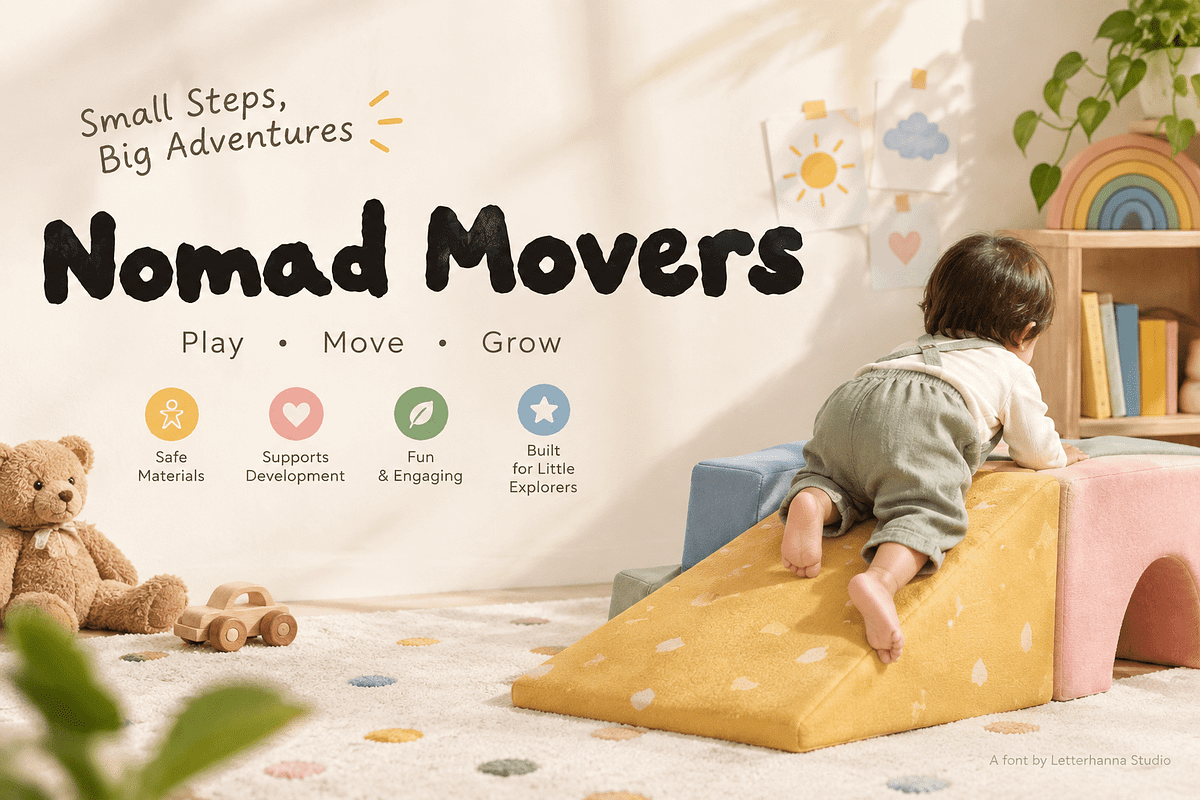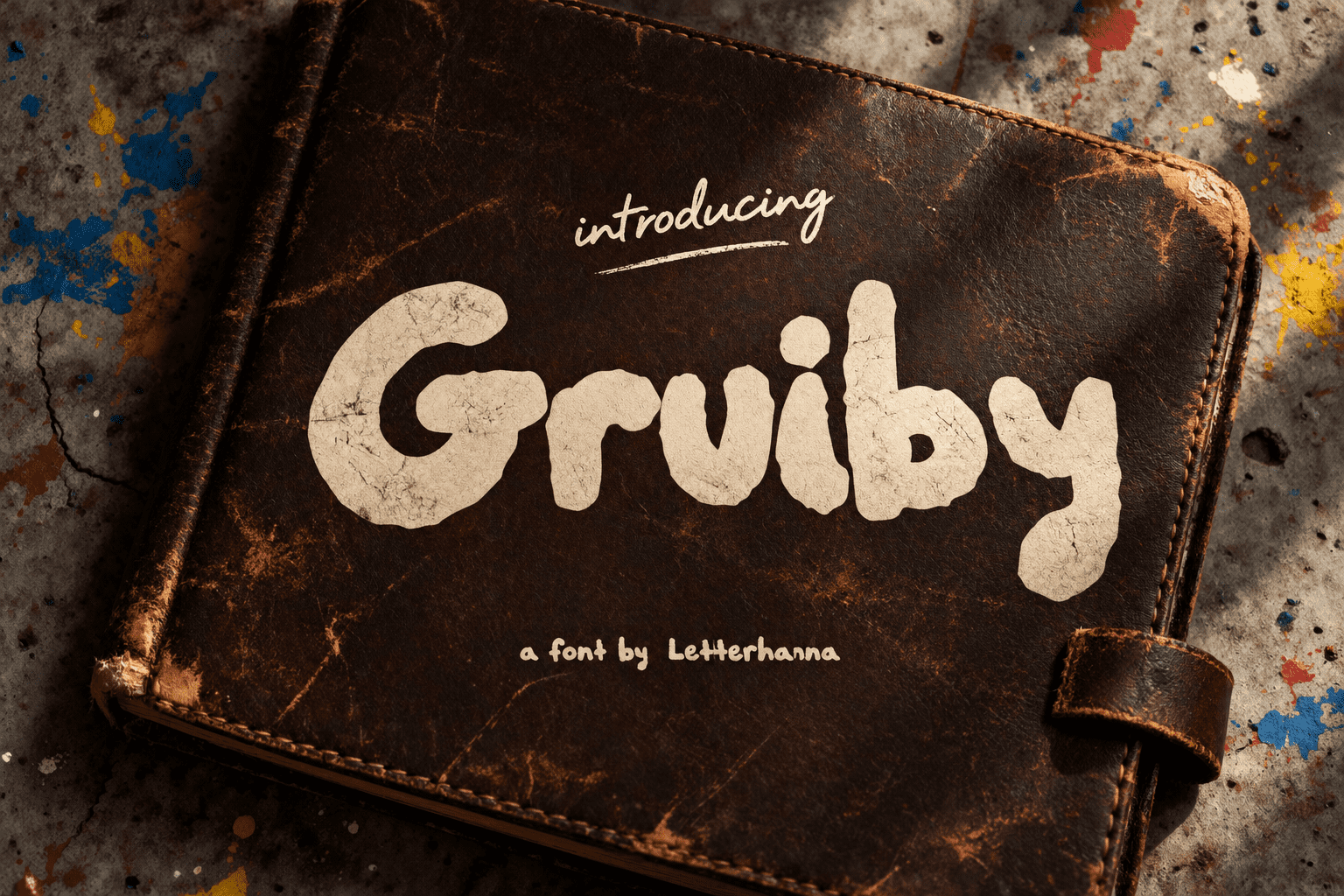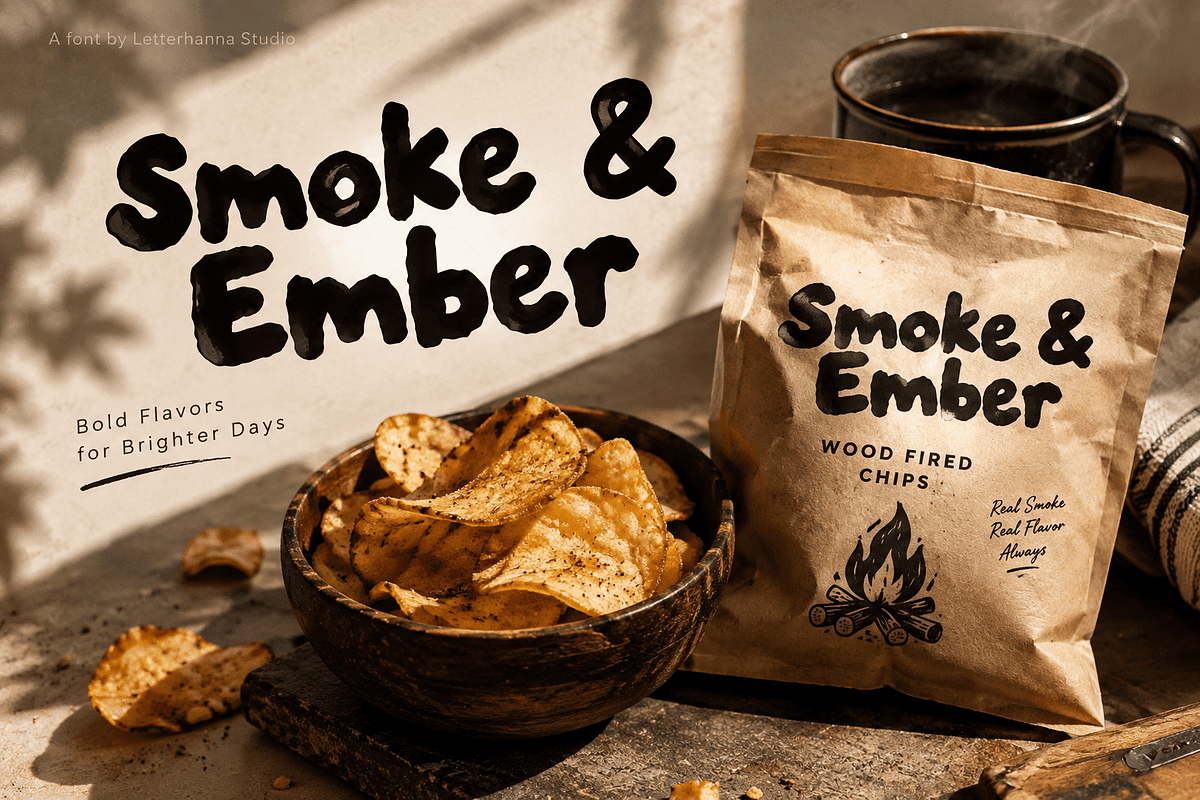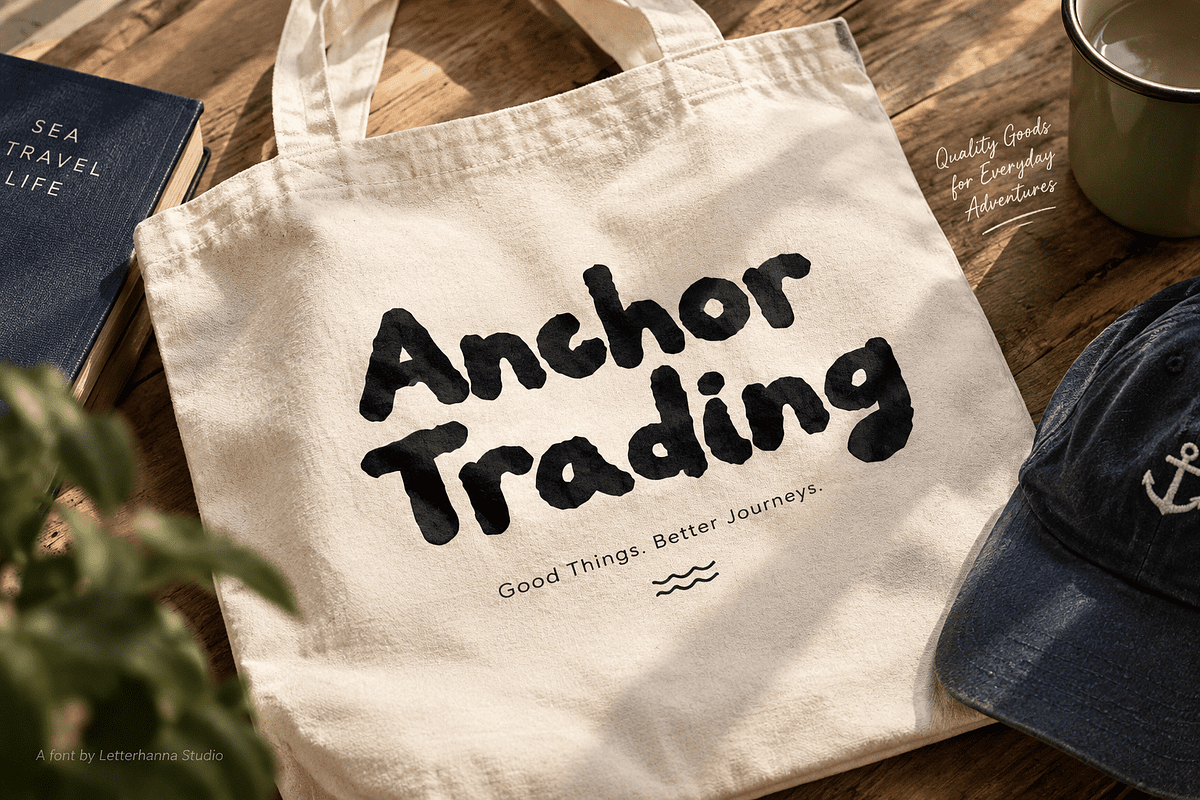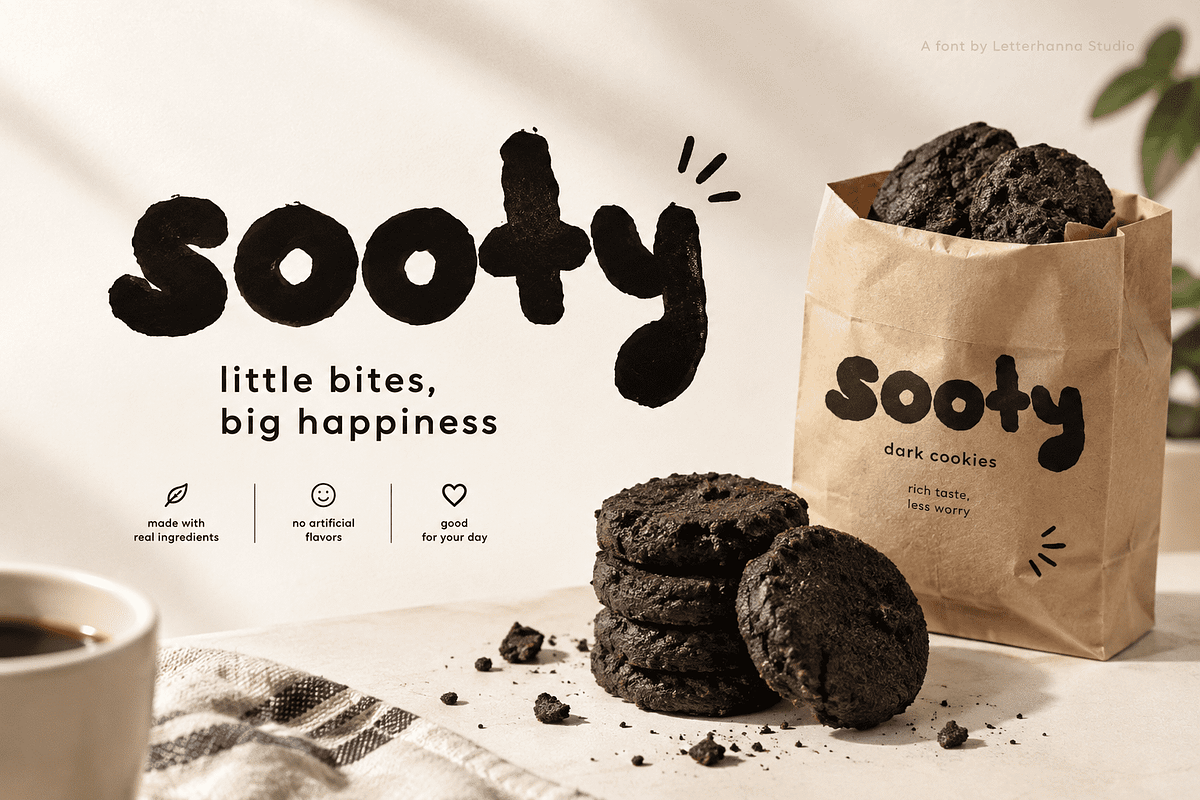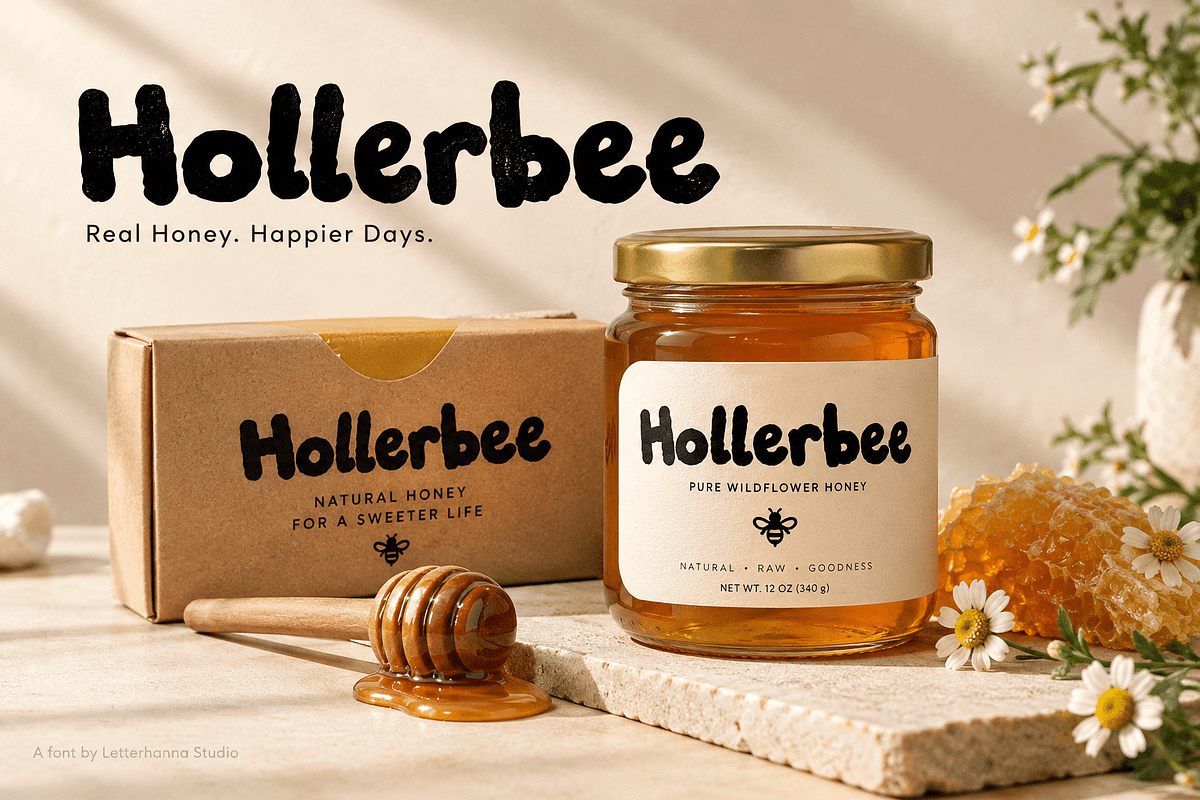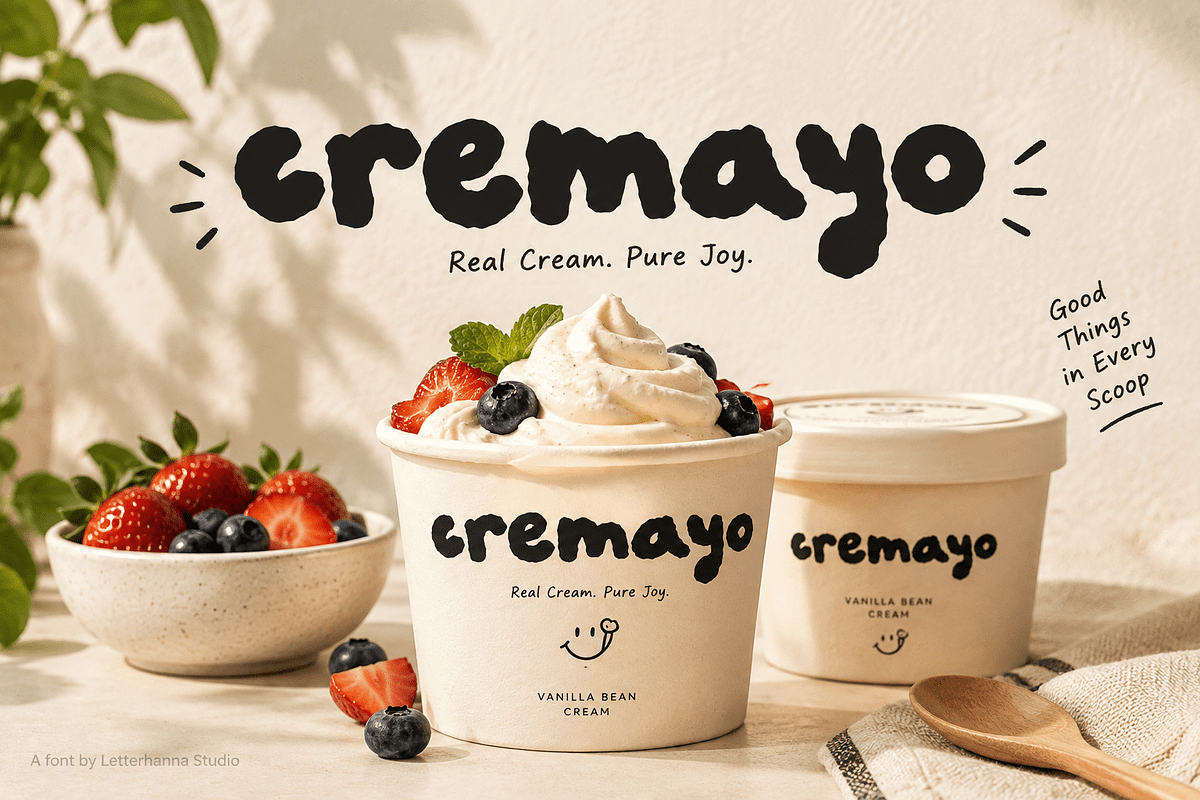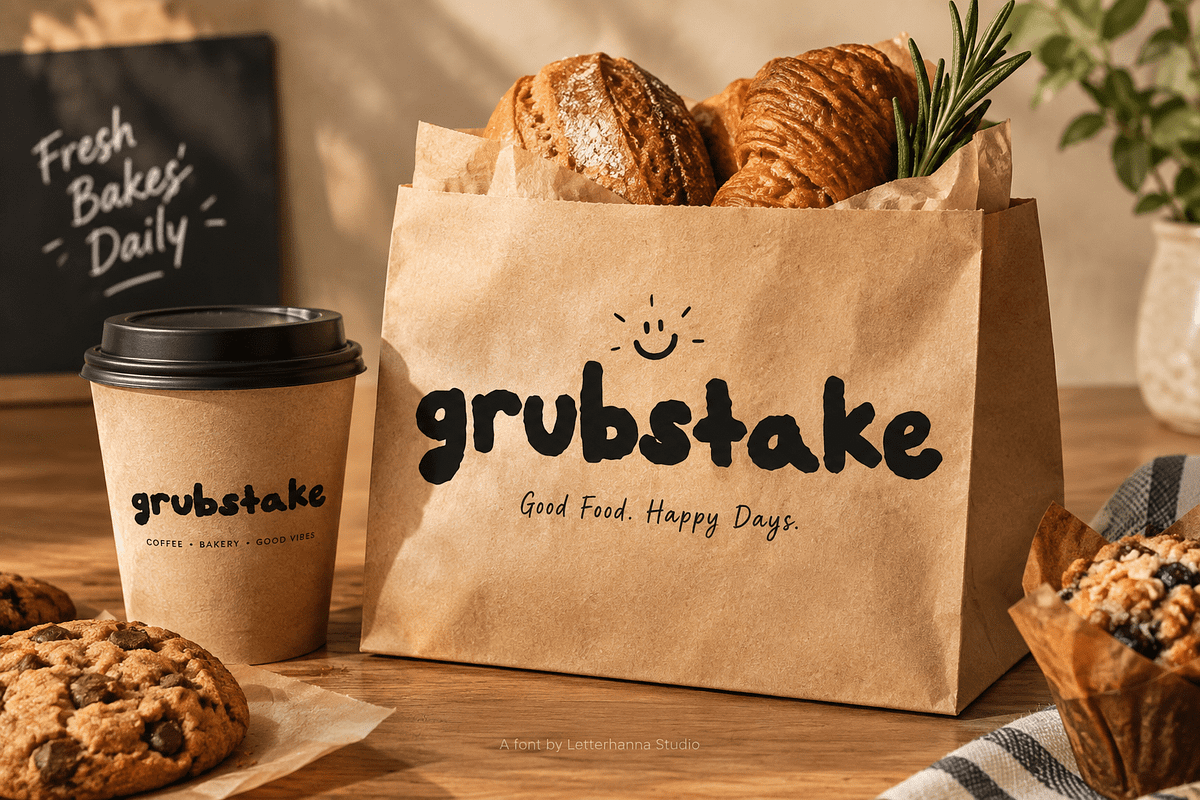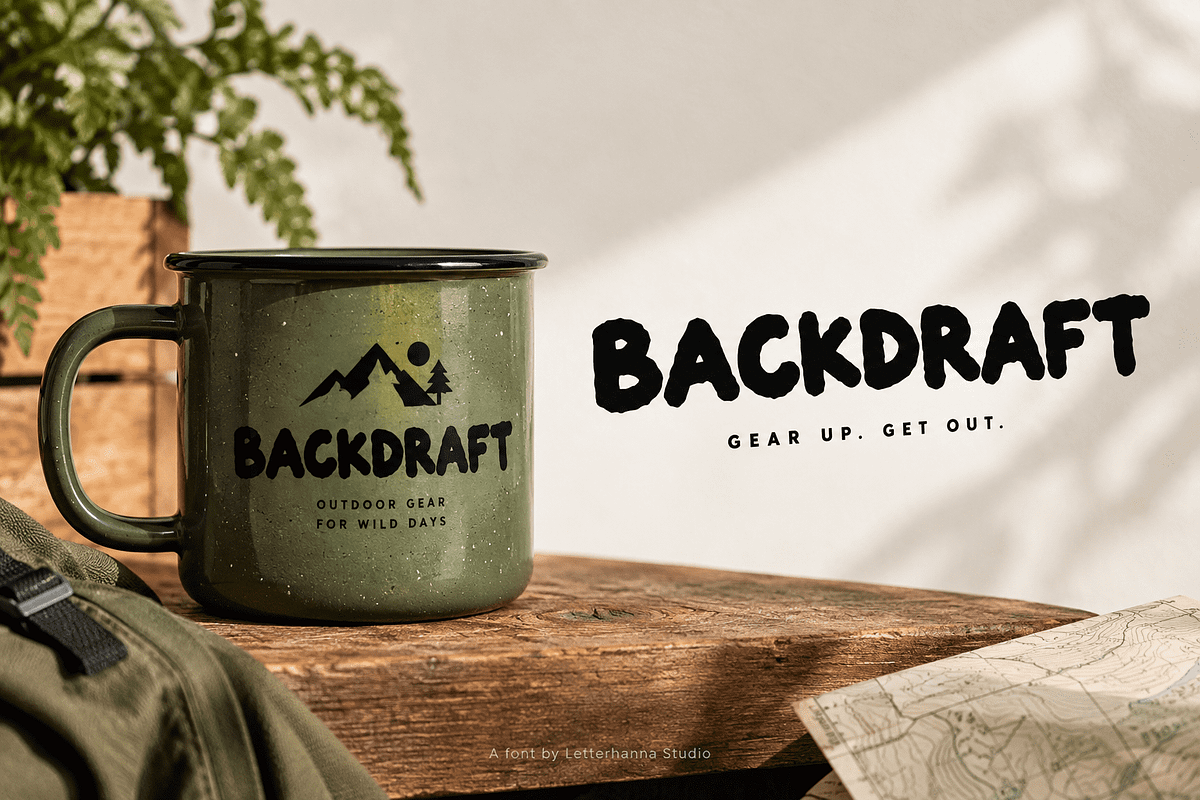
Gruiby Bold Bubble Rough Font
Your logo is fighting for two seconds of attention, and a thin, safe font won't win that fight. Gruiby is a bold bubble font designed to grab the eye first and hold the personality second.
The Problem With Generic Fonts
Scroll any feed and you'll see the same thin sans-serifs repeated on every bakery, every honey jar, every kids' brand. Nothing stands out because everything looks the same. That sameness is costing brands their memorability.
Enter Gruiby: A Handwritten Display Font That Feels Human
Gruiby breaks the pattern with thick, rounded letterforms that look hand-painted, not machine-made. As a handwritten display font, it keeps subtle imperfections that make type feel warm, crafted, and trustworthy.
What Makes the Style Work
Chunky, bubble-shaped letters with strong presence
Rounded terminals that feel friendly, not sharp
Clean enough to stay legible at any size
Hand-lettered character that avoids the "template" look
Real Use Cases
Gruiby fits naturally on coffee bags, bakery packaging, honey labels, kids' toy branding, tote bags, and bold social headlines. Anywhere a brand needs instant warmth, this bold bubble font delivers it in one glance.
The Payoff: Recognition, Not Just Design
A font isn't just decoration — it's the first impression your customer forms in under a second. Gruiby turns that second into recall, and recall into repeat customers.
The Vibe: Bold, Playful, Impossible to Ignore
Think of a marker stroke rounded into a bubble — confident enough for a headline, soft enough for a nursery wall. That contrast is exactly why Gruiby works across such different brands.